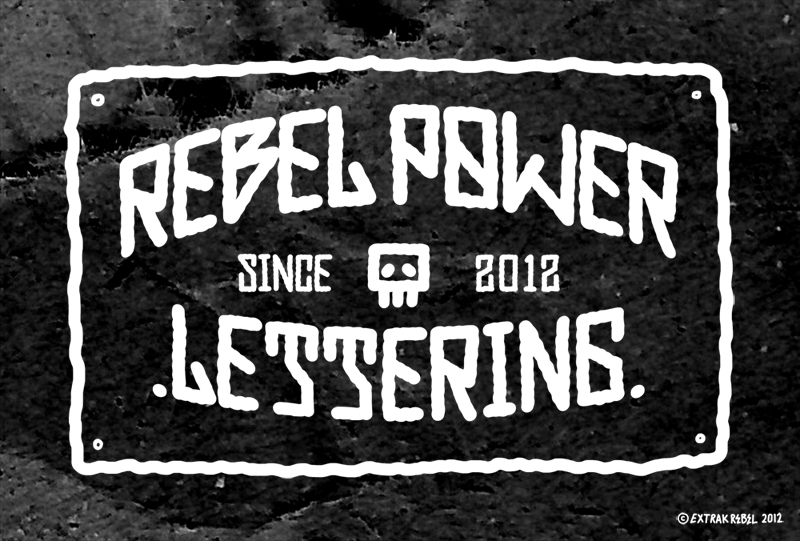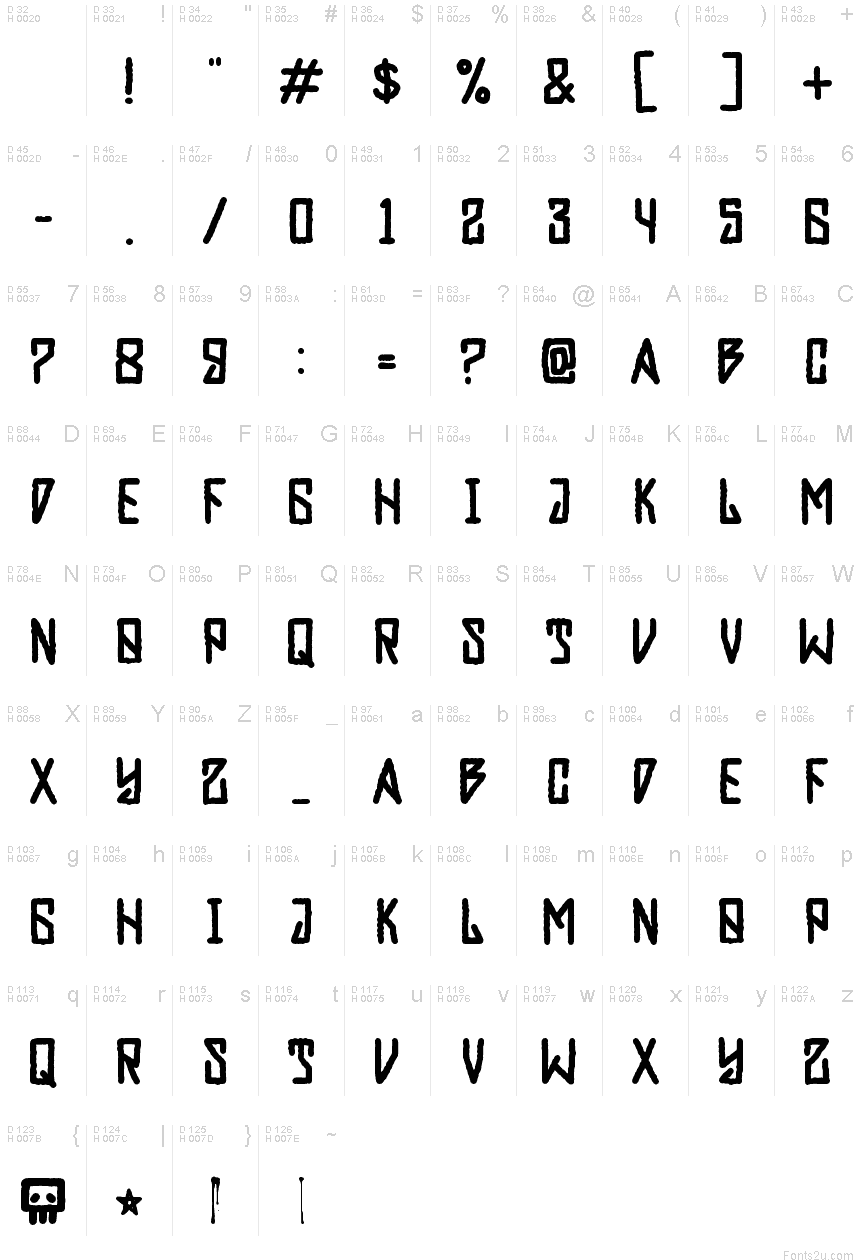
Rebel Power is a free eroded retro display font with tall, tightly packed capitals and a rough silhouette. Uneven stroke widths, swollen joins, and wavering edges make the lettering look restless and unruly.
Designers working in punk and underground music will find it suited to concert posters and merchandise. The compressed shapes also fit skate branding and DIY event graphics. In editorial design, it can turn a magazine opener into part of the artwork rather than a neutral heading.
REBEL POWER — Prezentacja czcionki